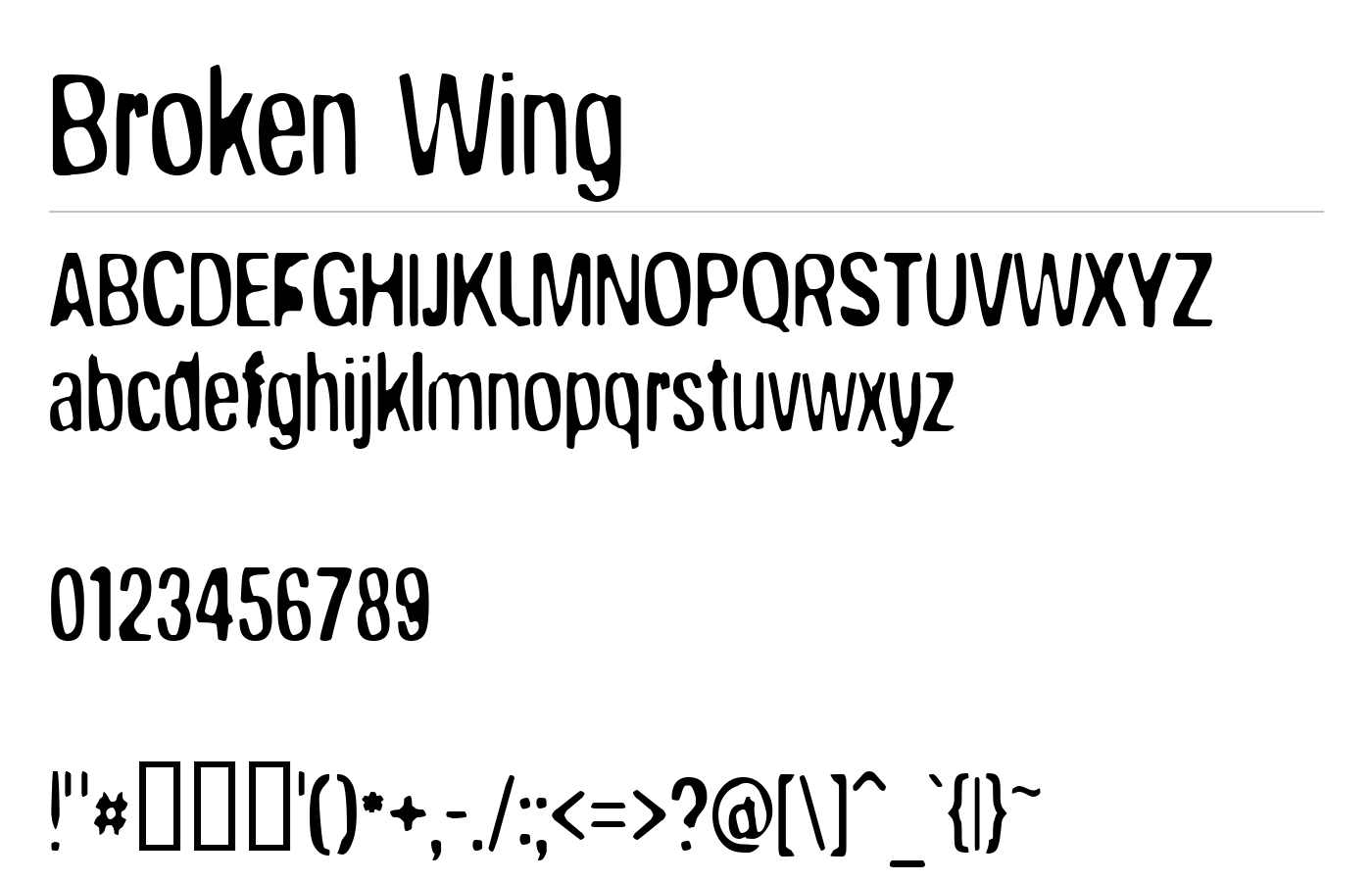
Broken Wing is a playful, narrow sans serif font with irregular, hand-drawn letterforms that give it a quirky, slightly imperfect character. Its tall x-height and uneven strokes create a casual yet distinctive look, making it a great choice for creative projects, informal branding, and fun headlines that need personality and charm.
Broken Wing Font